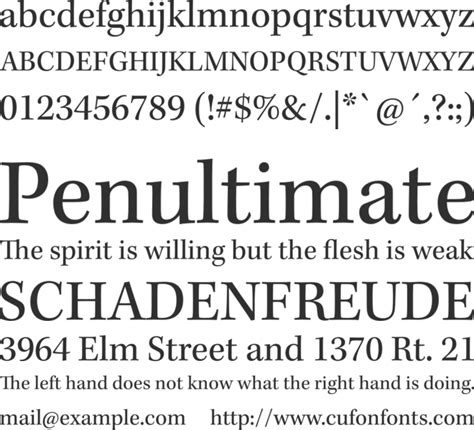
Kepler Std Font. Web explore kepler designed by robert slimbach at adobe fonts. A serif typeface with 168 styles, available from adobe fonts for.
Web explore kepler designed by robert slimbach at adobe fonts. A serif typeface with 168 styles, available from adobe fonts for.
A serif typeface with 168 styles, available from adobe fonts for. A serif typeface with 168 styles, available from adobe fonts for. Web explore kepler designed by robert slimbach at adobe fonts.